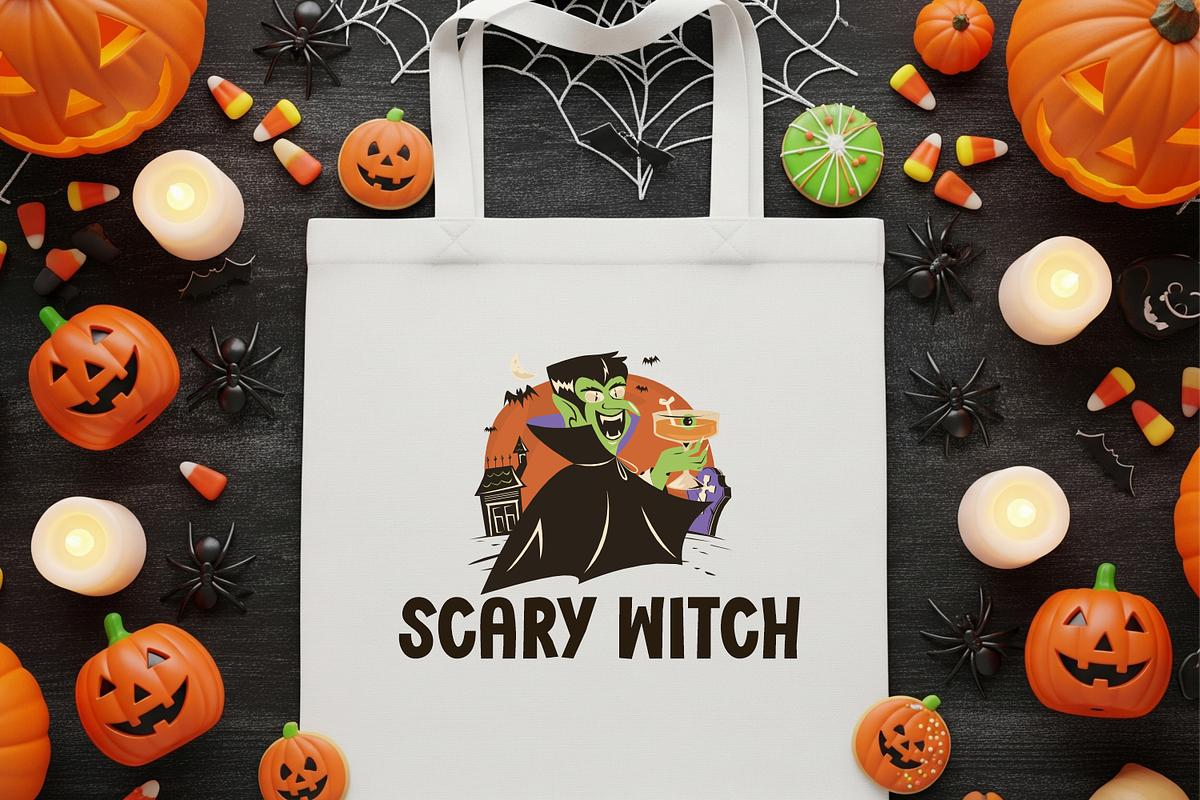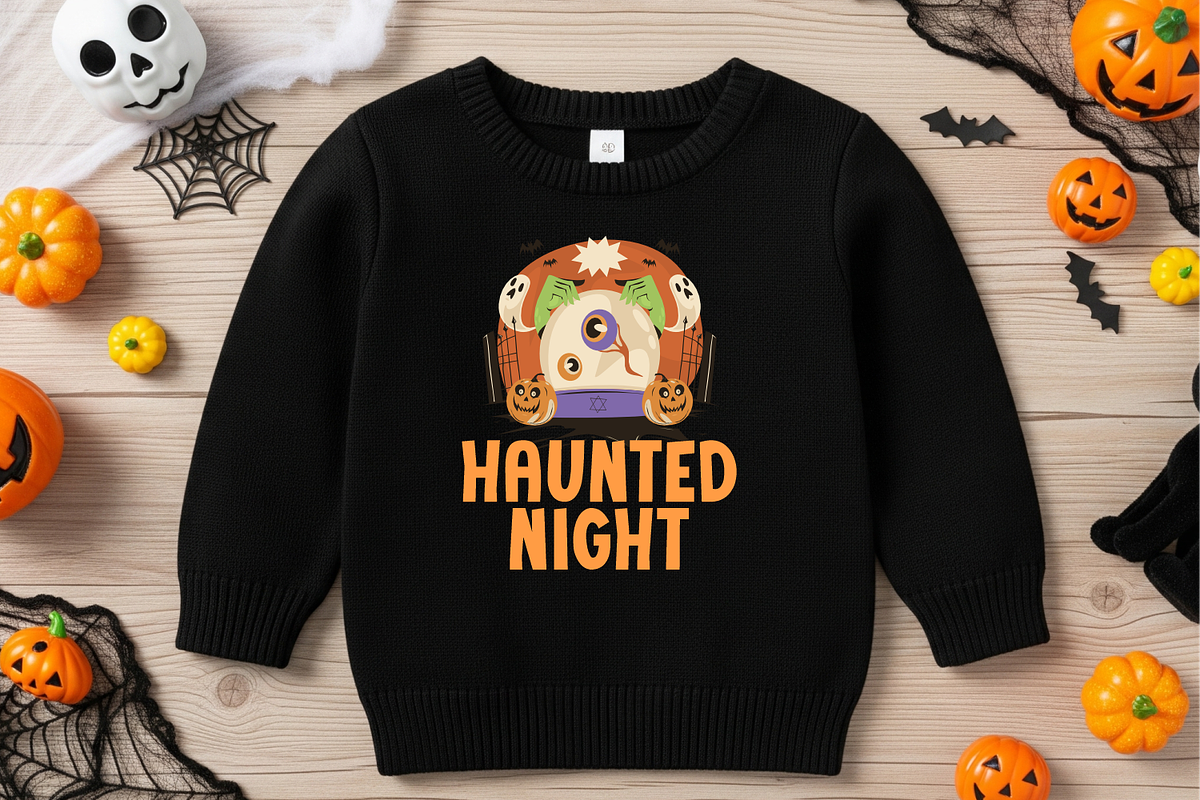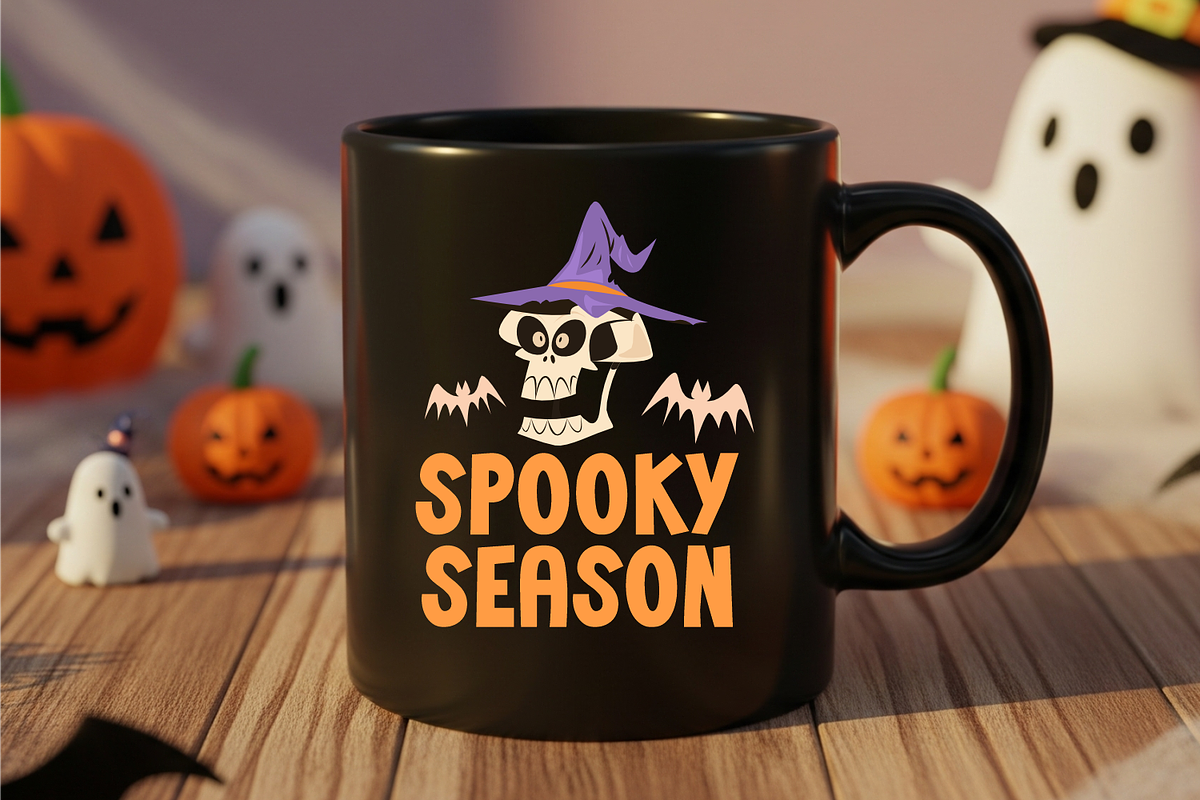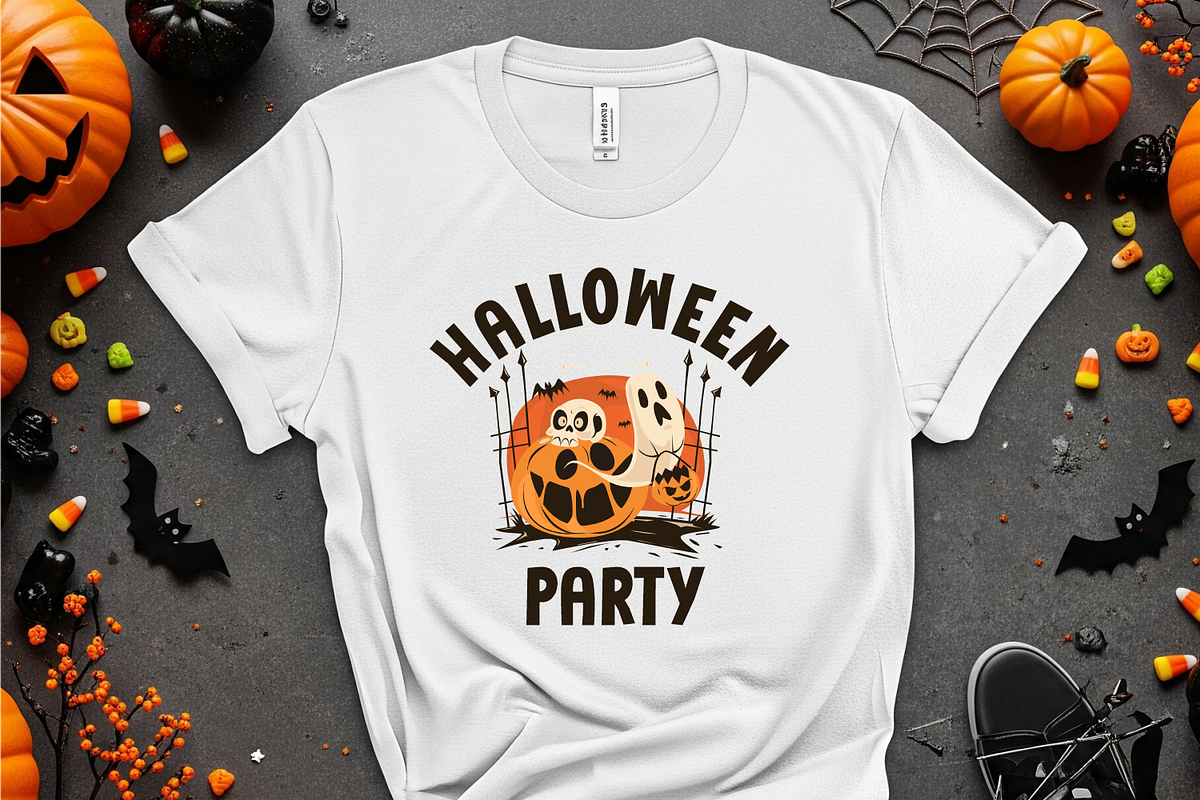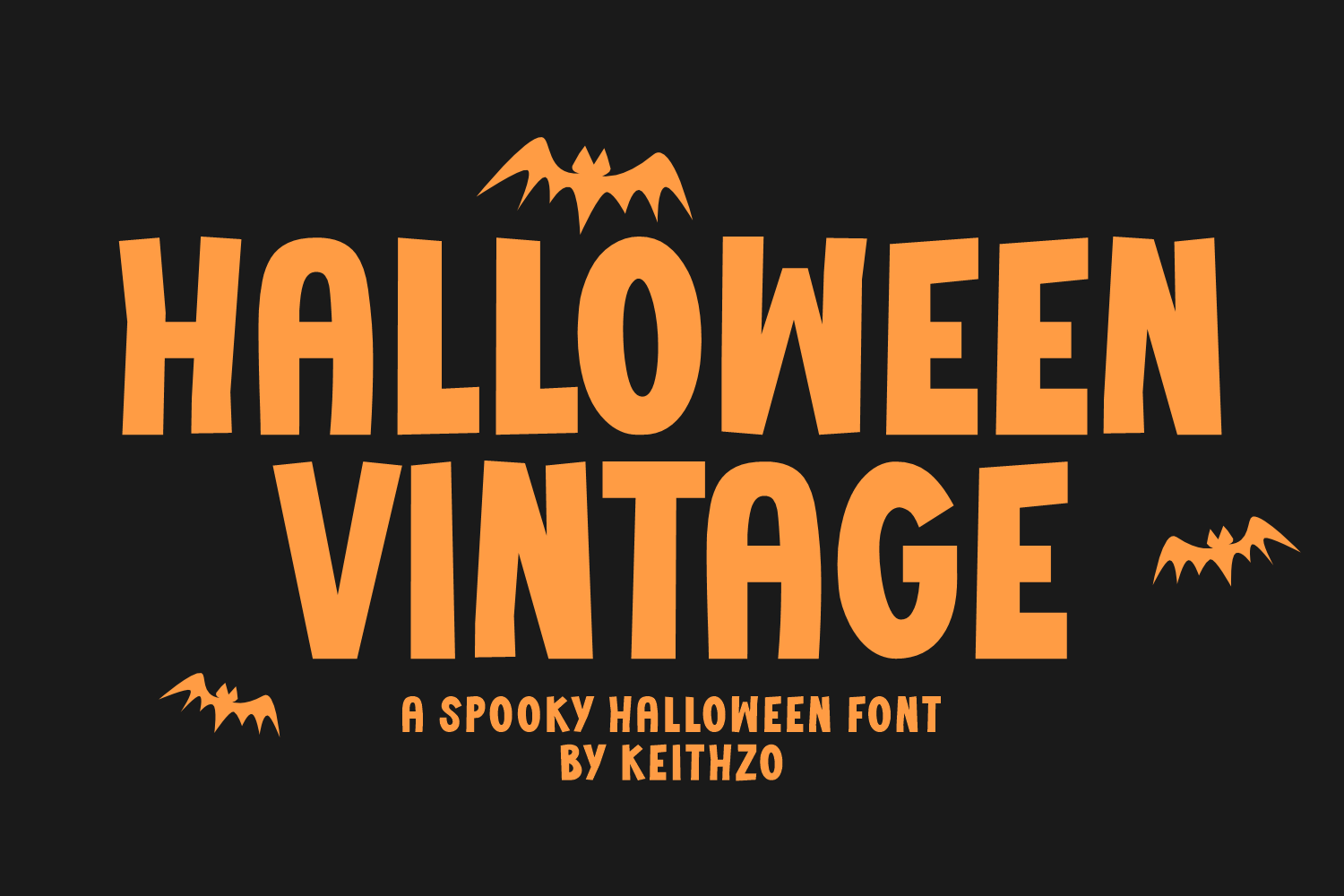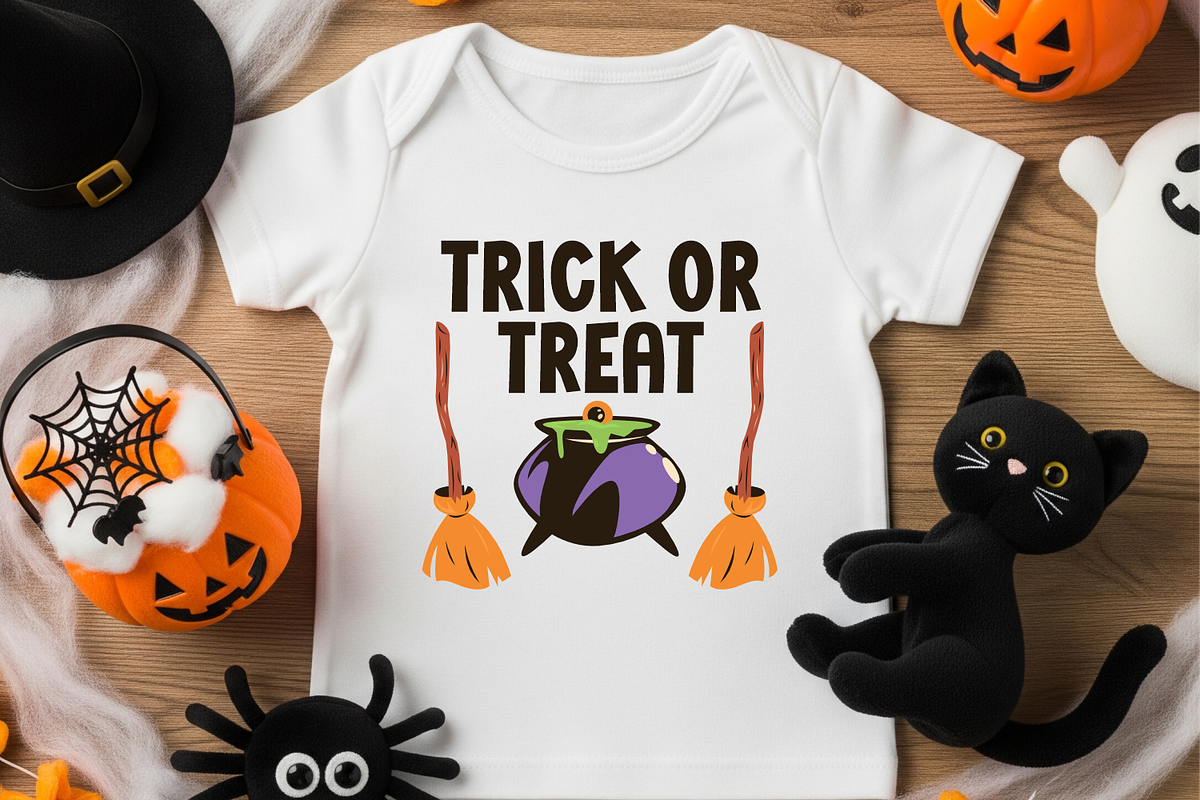
Halloween Vintage - Spooky Font
Introducing Halloween Vintage, an enchanting display font to inject that spine-tingling sensation into your unique Halloween-themed designs. With its nostalgic flair, it adds an enigmatic charm to a variety of mediums, from t-shirts to tumblers, and from stickers to hoodies, not forgetting those bewitching tote bags and glasses. Don’t hold back your creativity – Unleash the power of Halloween Vintage and let your imagination run wild. Trust us, your Halloween has never looked more extraordinary.